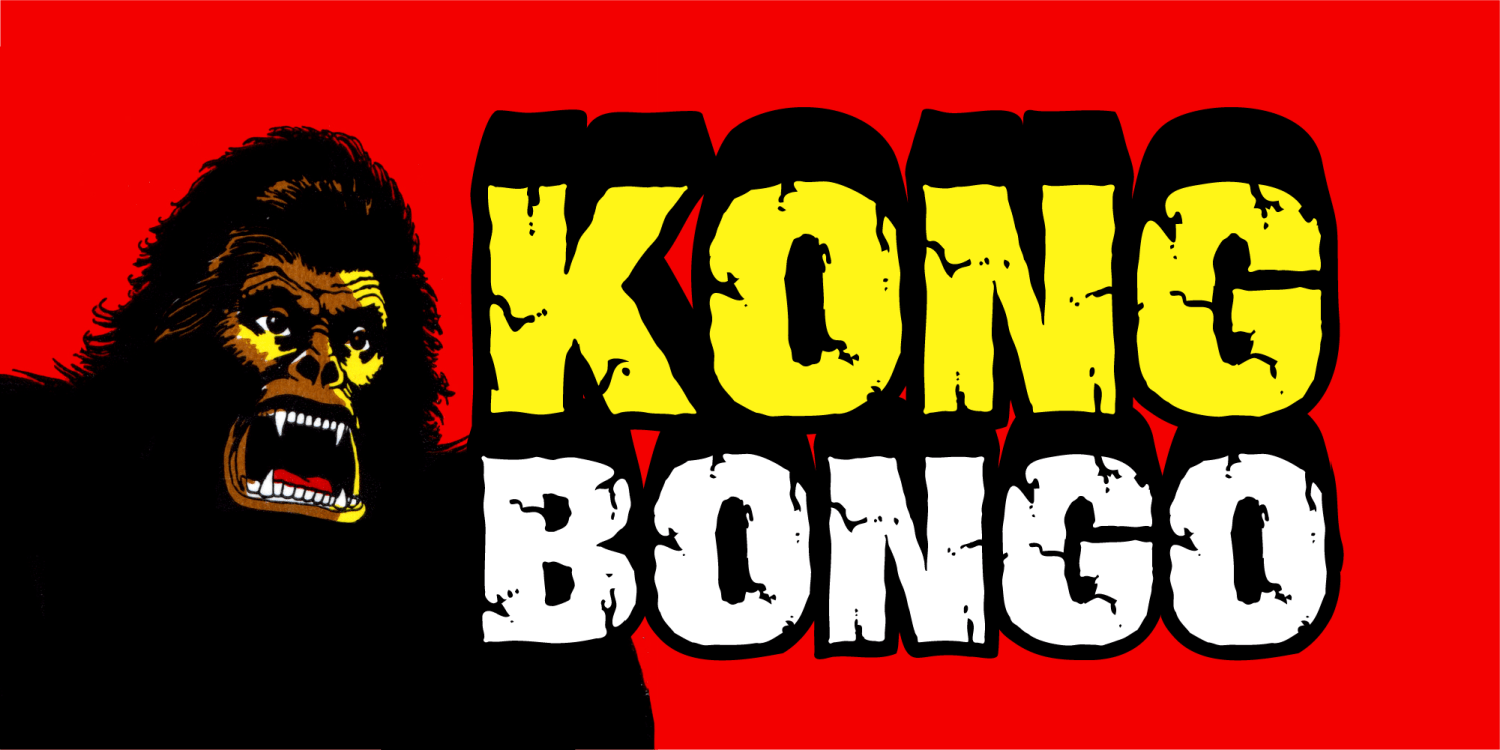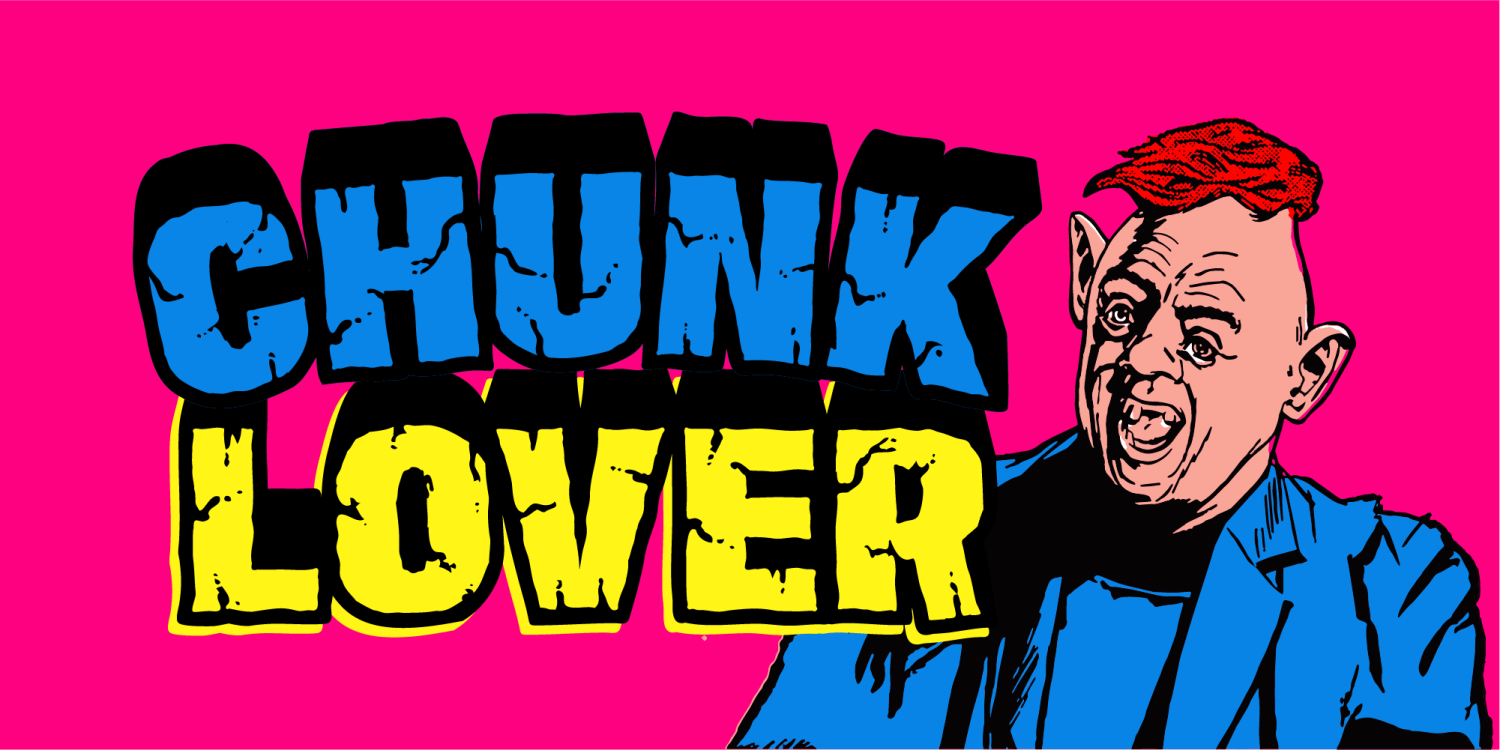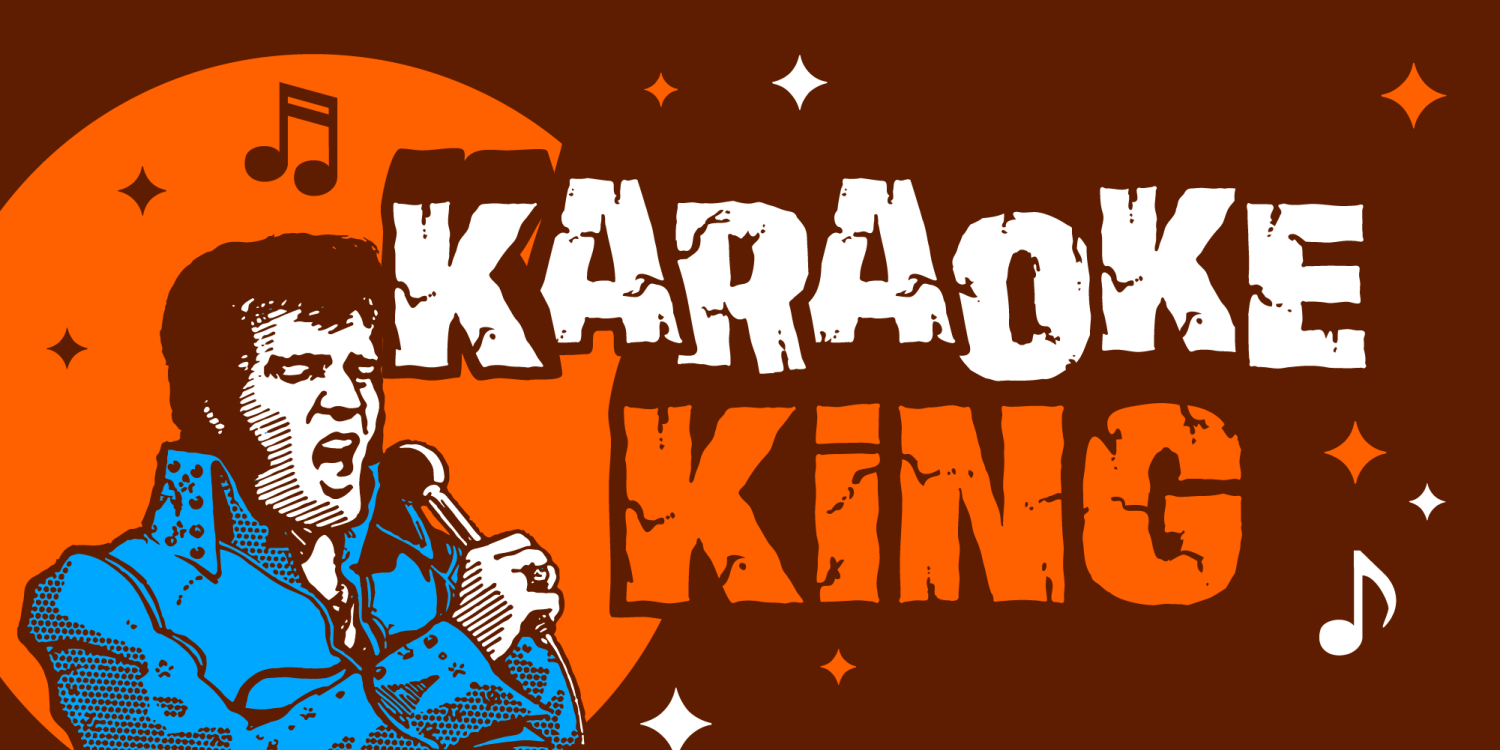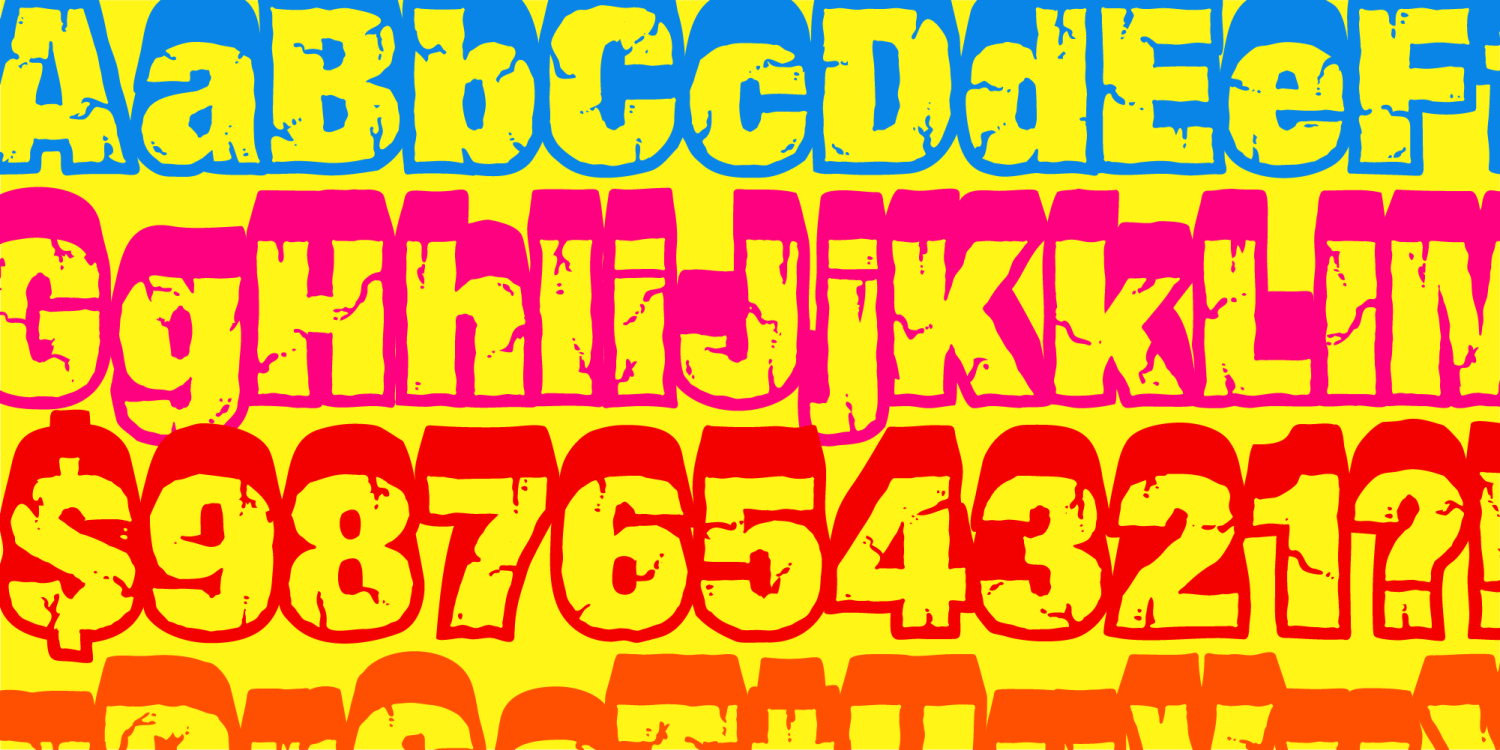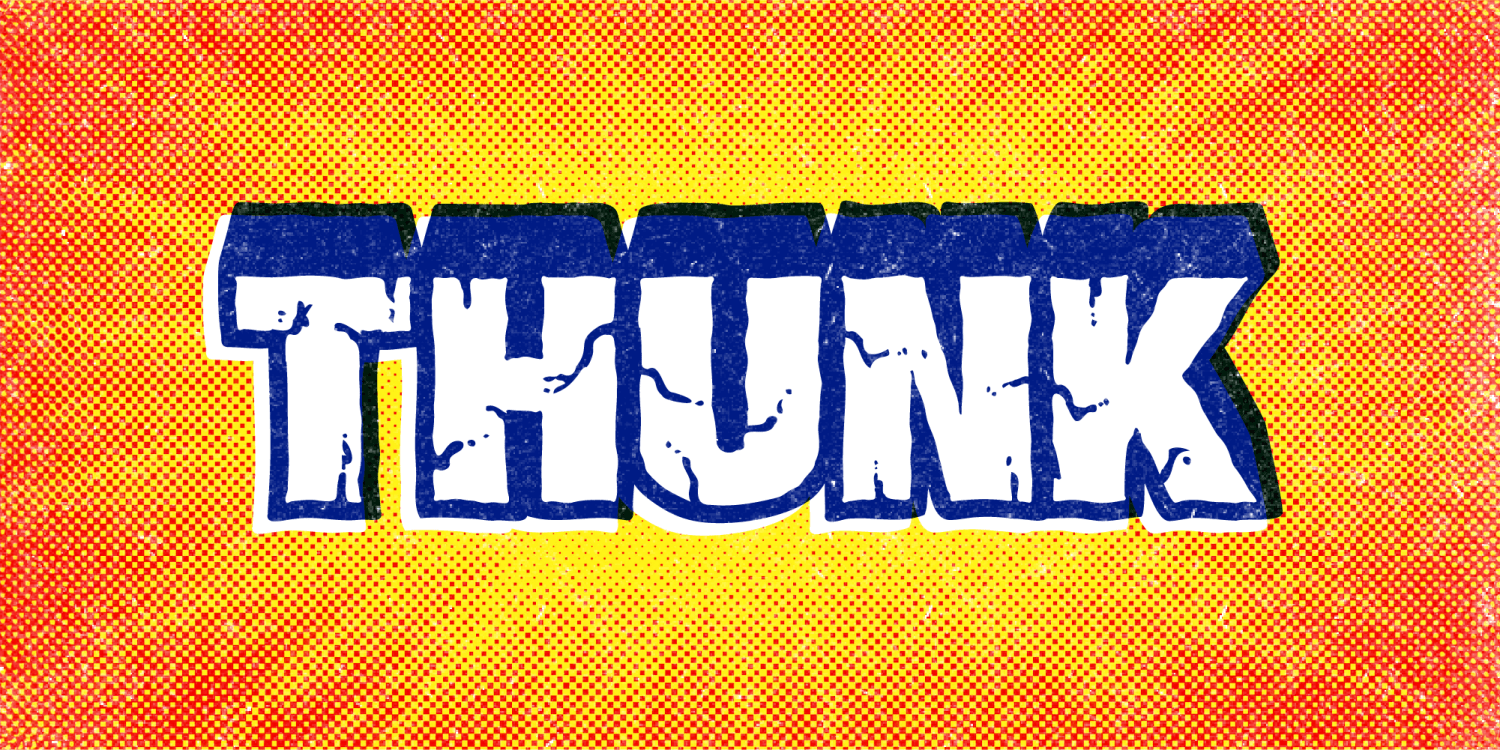
Thunk
About Thunk
If you were looking for an earthquake font, congratulations, you just found her. 240 glyphs of earth smashing typography, sure to draw a line in the sand of any message you're illustrating. It's Thunk, not like the hillbilly past tense of "think",…